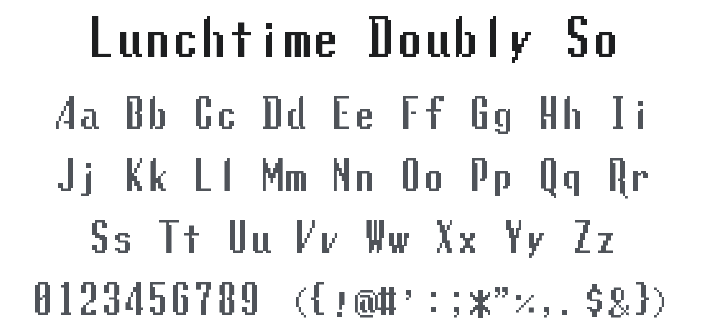
Lunchtime Doubly So Font
About Lunchtime Doubly So
Soulblazer. Illusion of Gaia. And of course, the elusive Terranigma. What do they have in common? Besides being quite awesome Super Nintendo RPGs, they all used this font for their dialogue, of course.